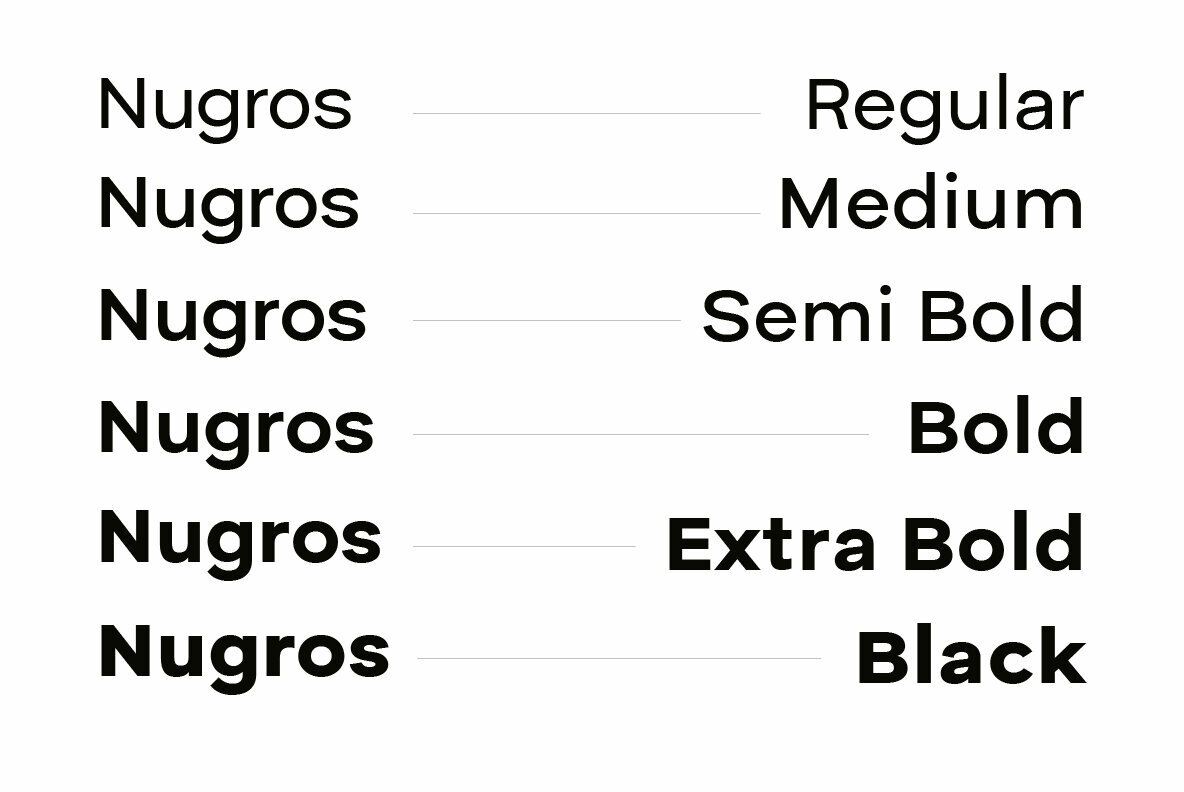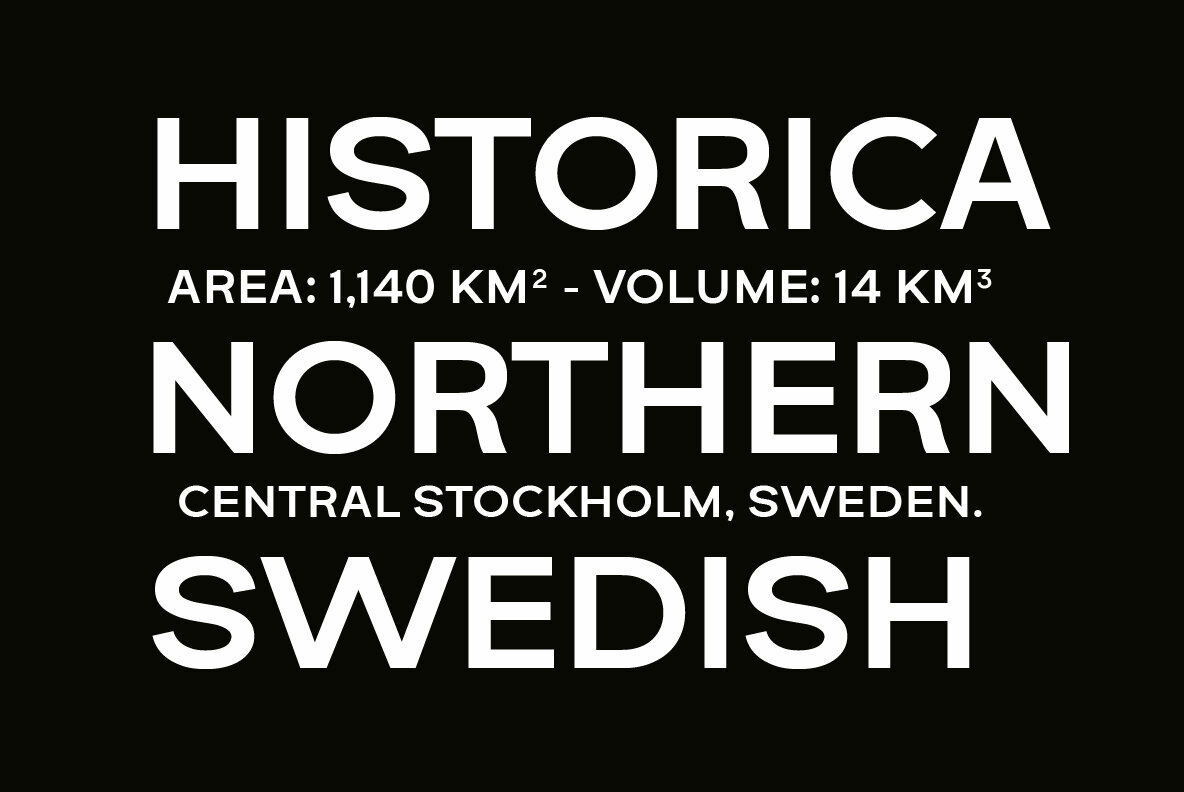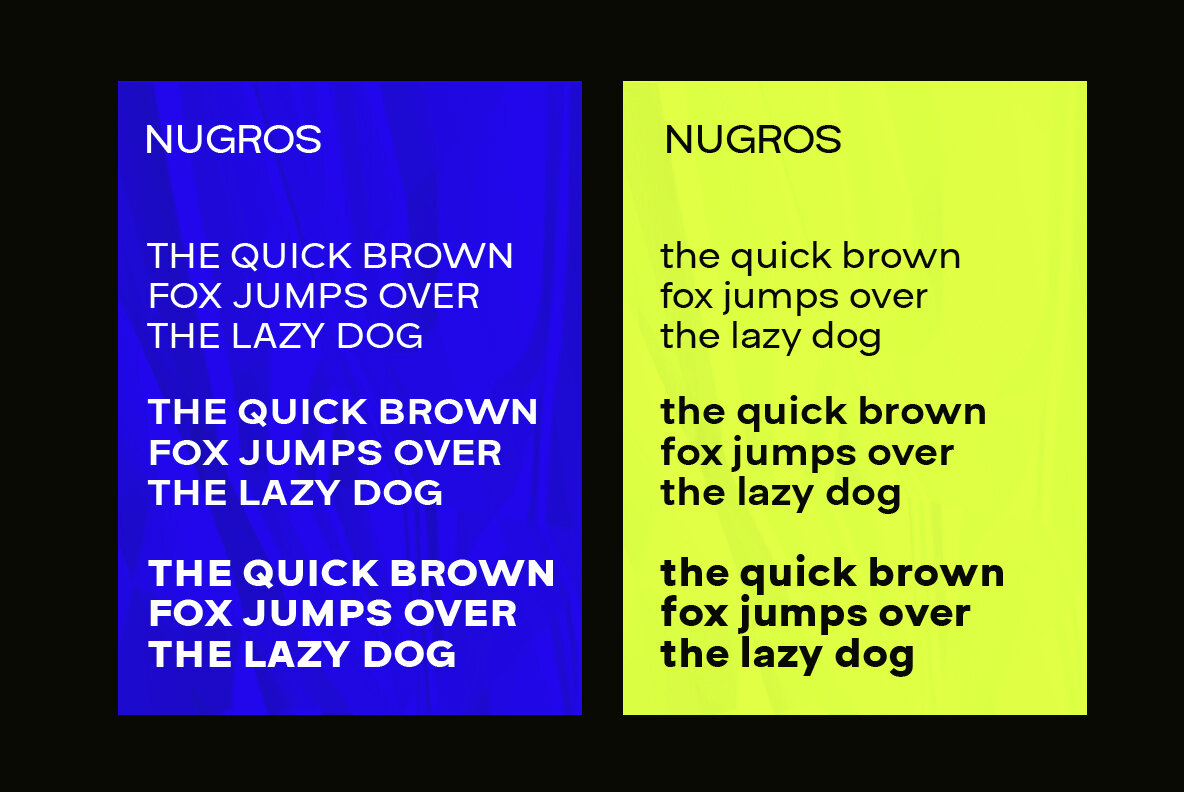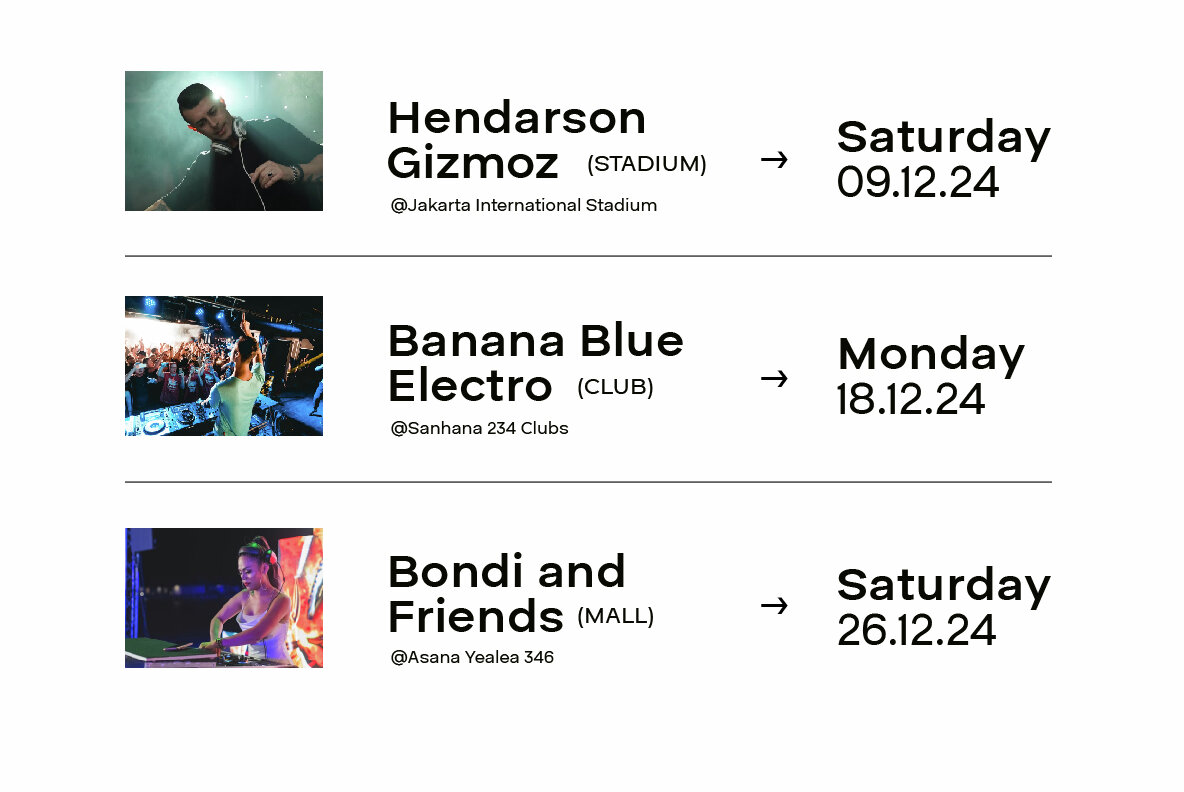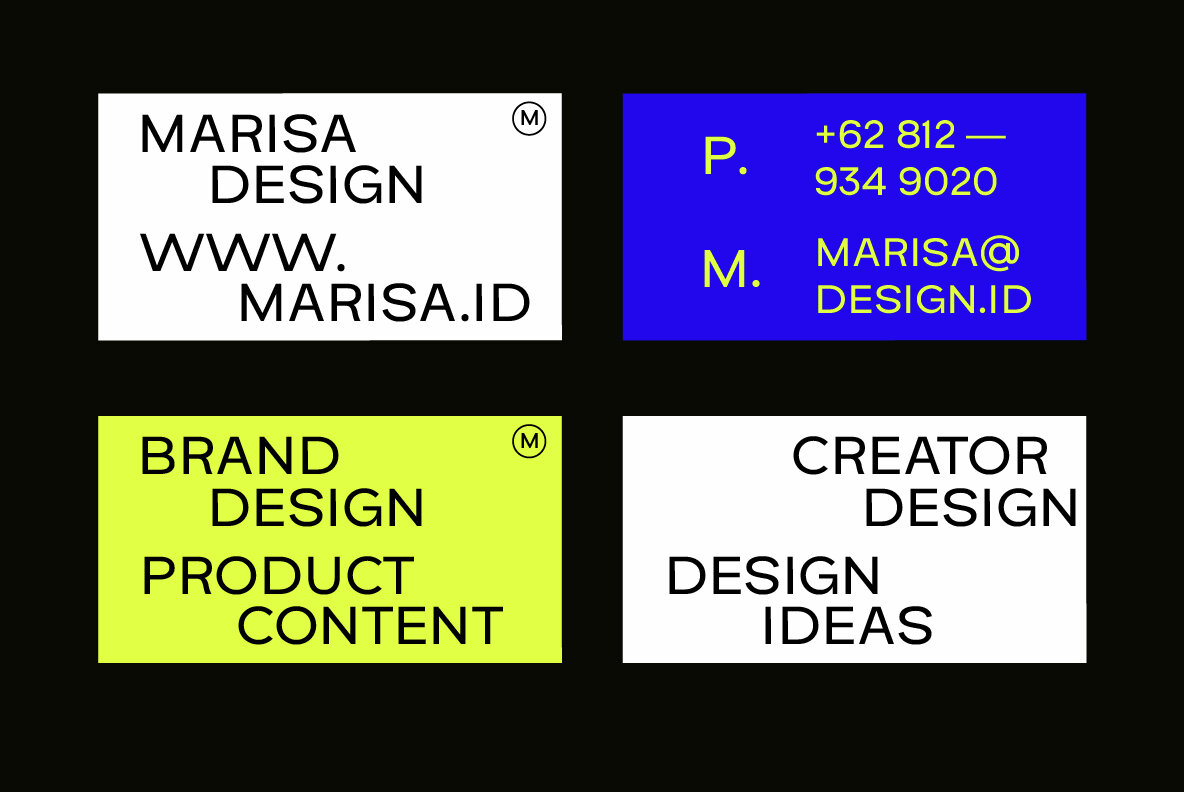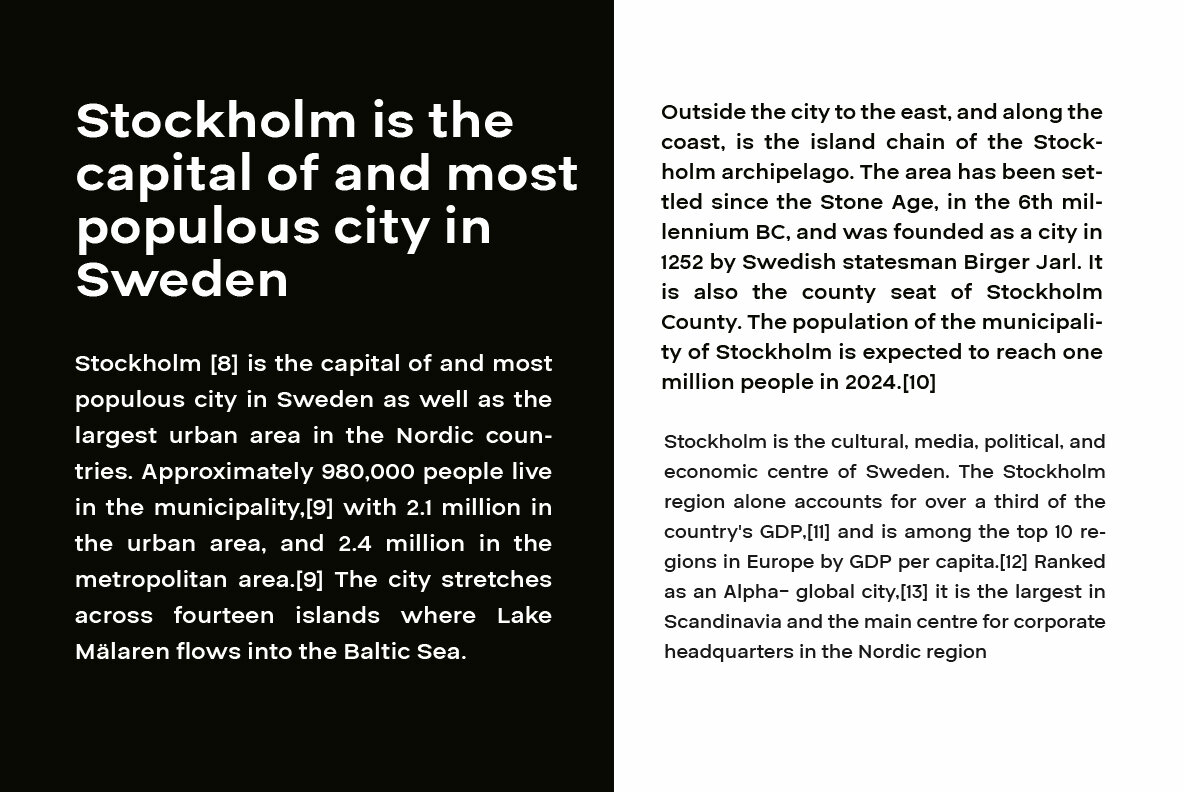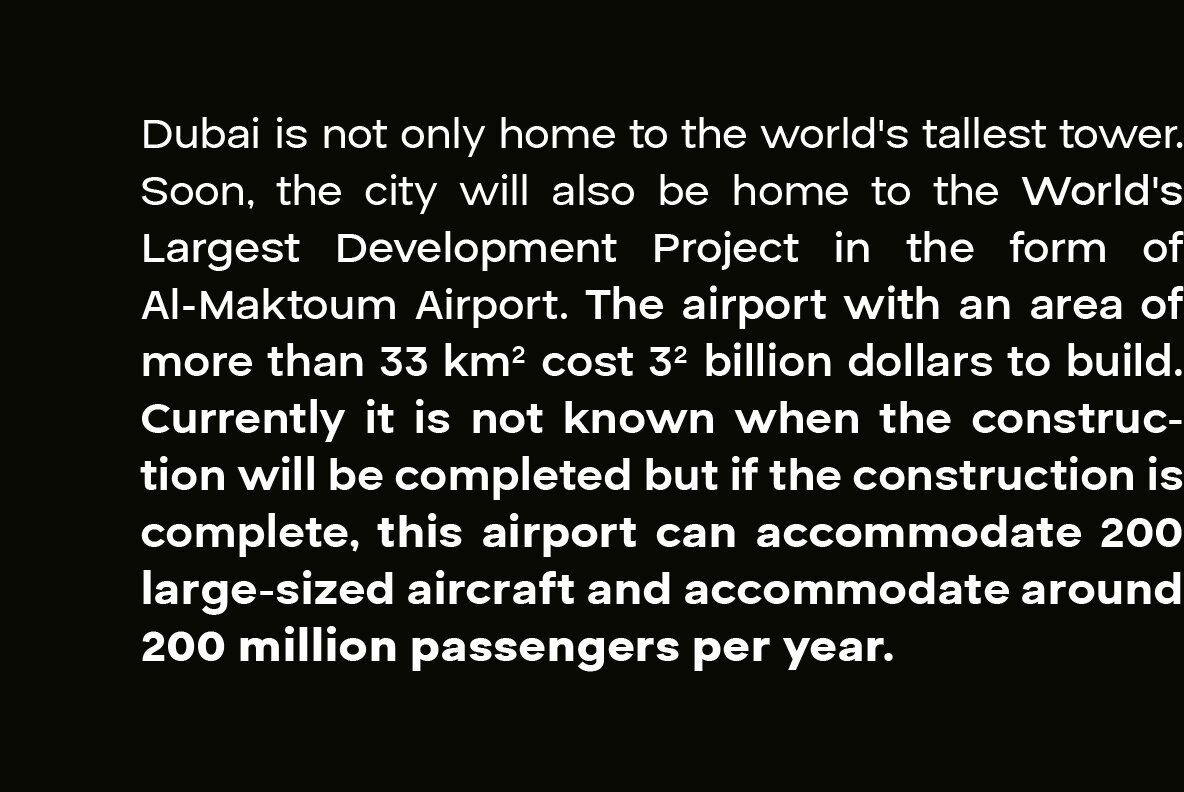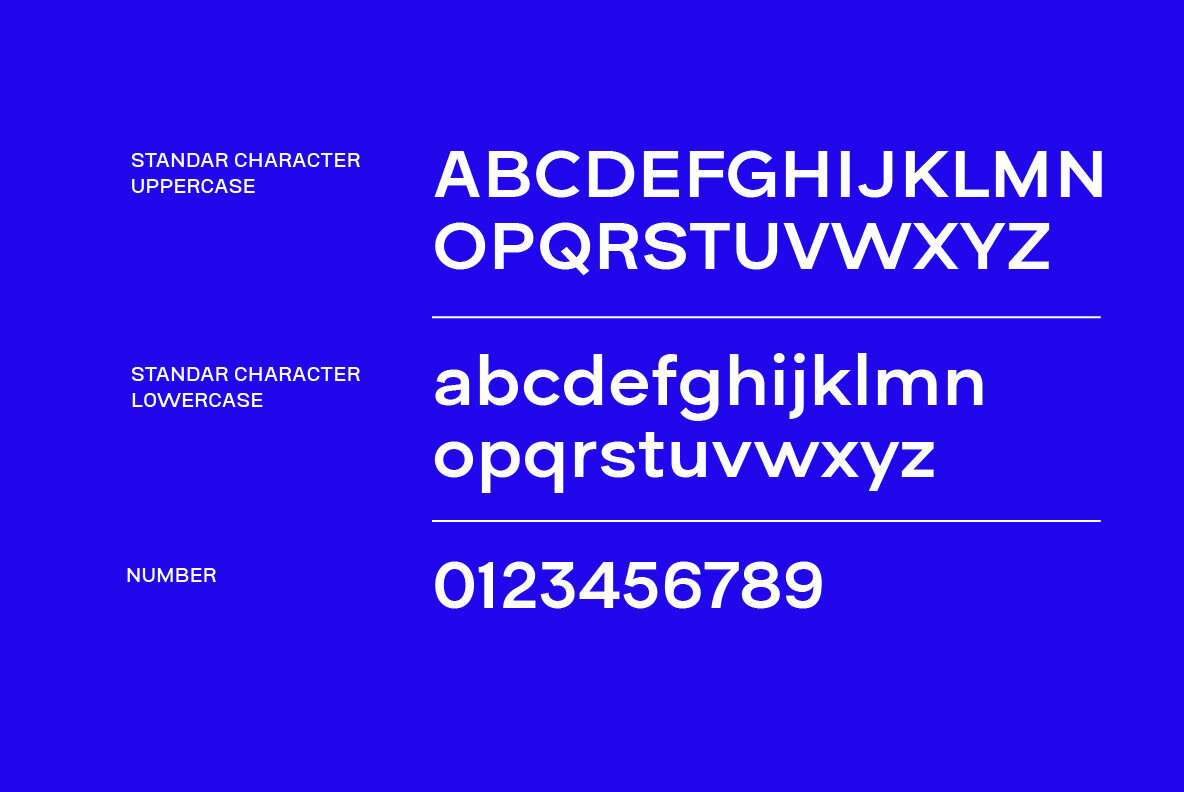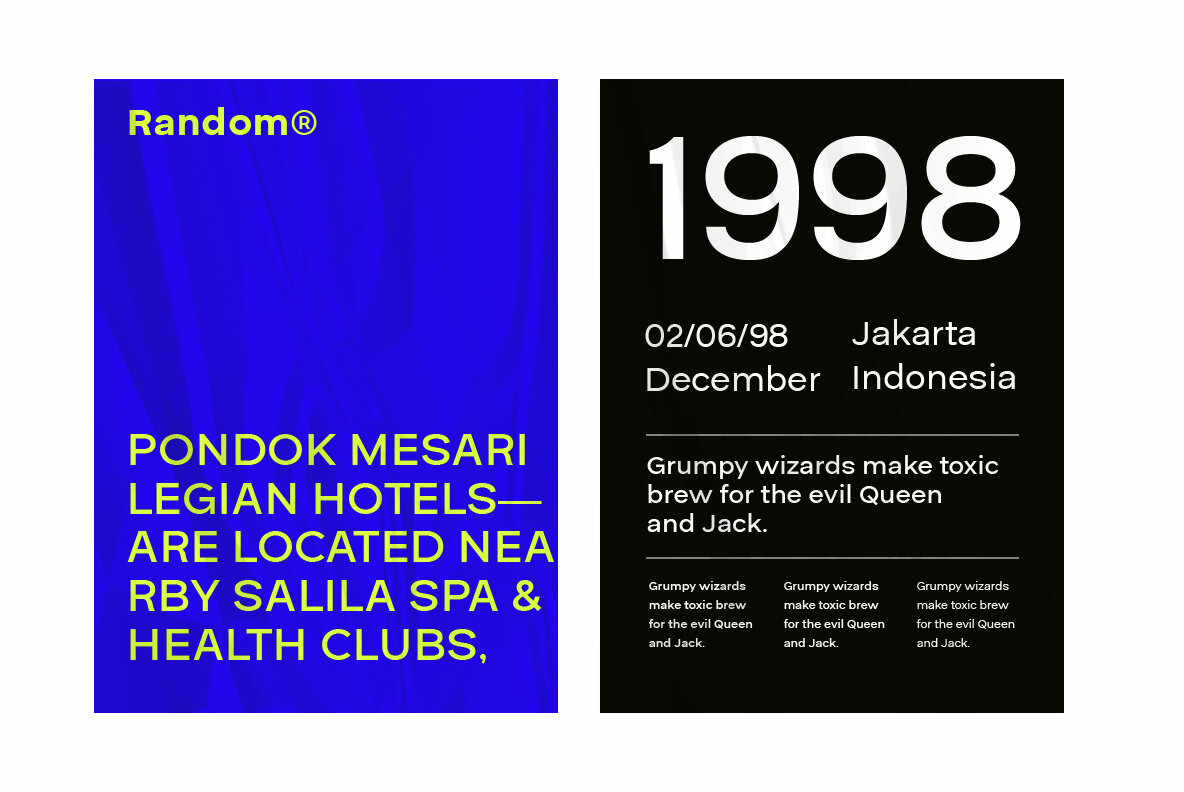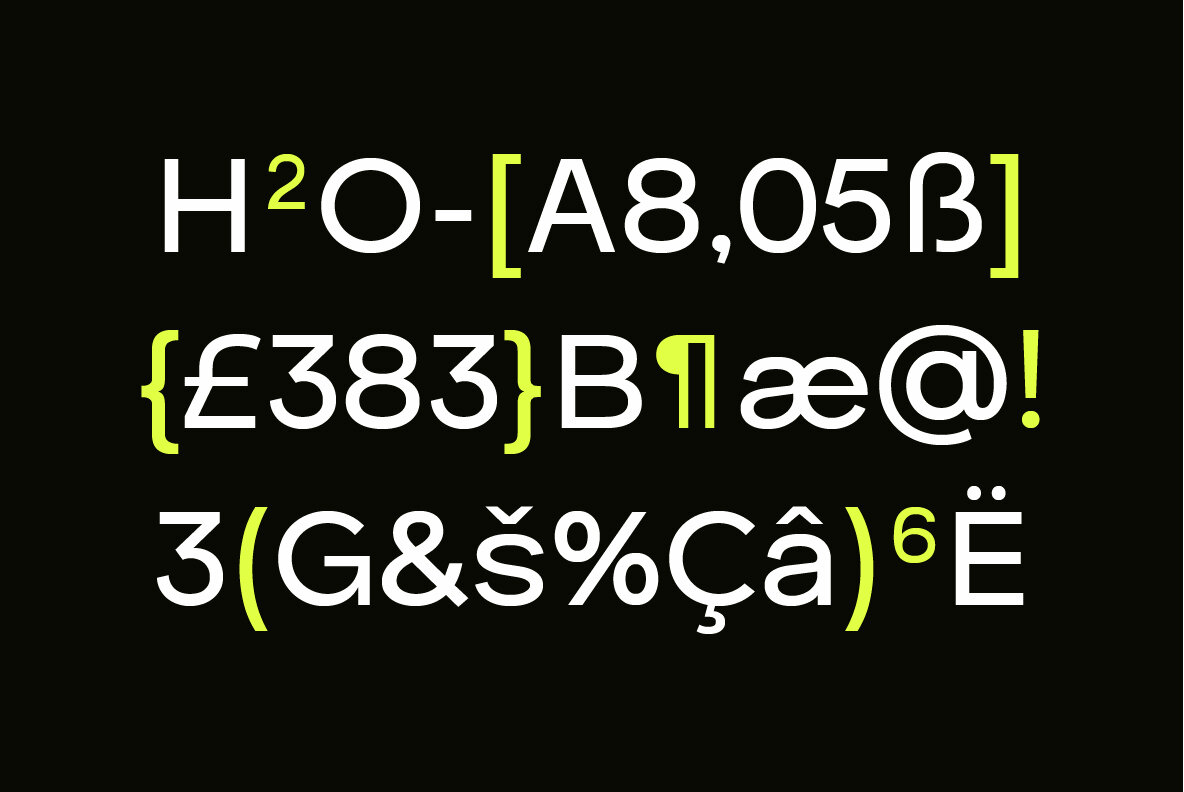
Nugros Font
The Nugros Sans Serif Font Family is designed with simplicity and elegance in mind, making it ideal for a wide range of formal design applications. Whether you're working on logo designs, websites, brochures, or pamphlets, this typeface provides a perfect solution.Nugros Sans Serif: A Modern and Elegant Typeface